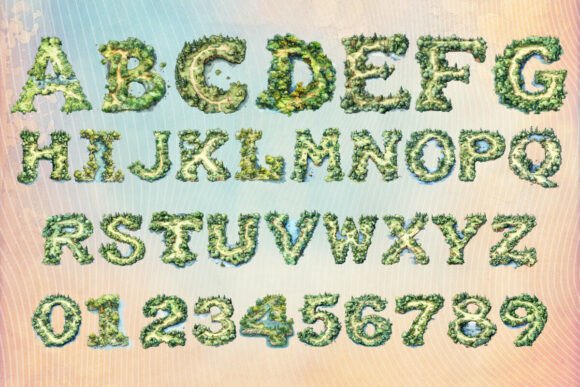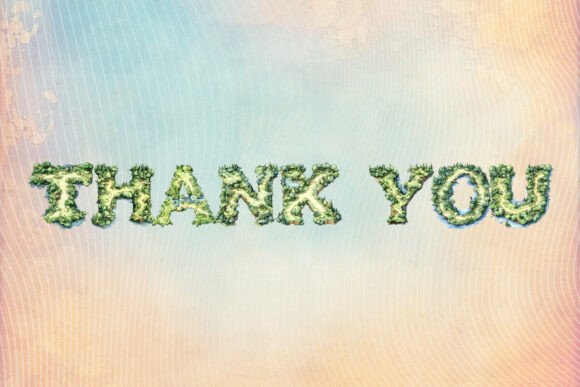
Discover the Enchanting Island Forest Alphabet Font
Are you tired of using the same old fonts for your designs? Look no further! Introducing the Forestisland Font, a unique and captivating typeface that combines the serenity of nature with the art of typography. This stunning font is perfect for designers and crafters seeking to add a touch of whimsy and elegance to their projects.
A Unique Blend of Nature and Typography
The Island Forest Alphabet font is a true gem, boasting a vibrant green palette that evokes the tranquillity of a secluded island forest. Each letter in this alphabet set is carefully crafted to bring a refreshing essence to your designs, making it perfect for Earth Day themes, eco-friendly projects, and any design that requires a touch of natural beauty.
A Refreshing Watercolor Technique
What sets the Forestisland Font apart is its beautiful watercolor technique. Painted in luscious, vibrant colors, this font adds a charming and artistic touch to any project. The soft, blended edges of each letter create a sense of movement and fluidity, giving your designs a dynamic and eye-catching feel.
Whether you’re a designer, crafter, or DIY enthusiast, the Forestisland Font is the perfect addition to your creative toolkit. Use it to create stunning visual content, such as:
- Earth Day themed posters and flyers
- Eco-friendly branding and packaging
- Beautiful journal pages and planners
- Whimsical greeting cards and invitations
Make a Statement with Forestisland Font
This color font is not just visually arresting; it’s also designed to make a statement. With its unique blend of nature and typography, the Forestisland Font is perfect for designers and crafters who want to add a touch of personality to their projects. Whether you’re creating a brand identity, a marketing campaign, or simply a personal project, this font is sure to captivate your audience.
Key Features of Forestisland Font
- Unique watercolor technique
- Vibrant green palette
- Perfect for Earth Day themes and eco-friendly projects
- Charming and artistic touch
- Captivating and visually arresting
Get Ready to be Enchanted
If you’re looking for a font that will transport you to a world of serenity and natural beauty, look no further than the Forestisland Font. With its enchanting charm and captivating design, this font is sure to inspire your creativity and take your designs to the next level.
In conclusion, the Forestisland Font is a true gem for designers and crafters seeking to add a touch of nature and typography to their projects. With its unique watercolor technique, vibrant green palette, and captivating charm, this font is perfect for Earth Day themes, eco-friendly projects, and any design that requires a touch of whimsy and elegance. So why wait? Get caught in the captivating charm of the Forestisland Font and experience the magic of nature and typography combined.